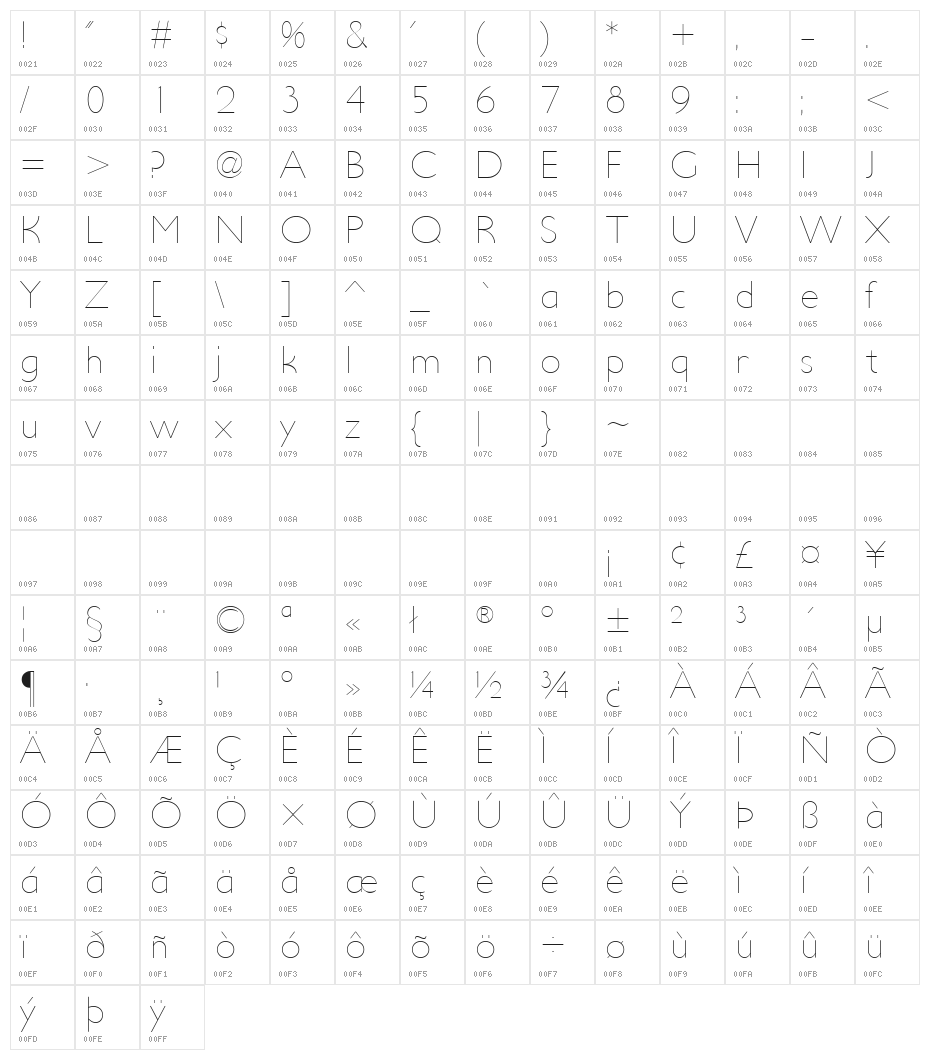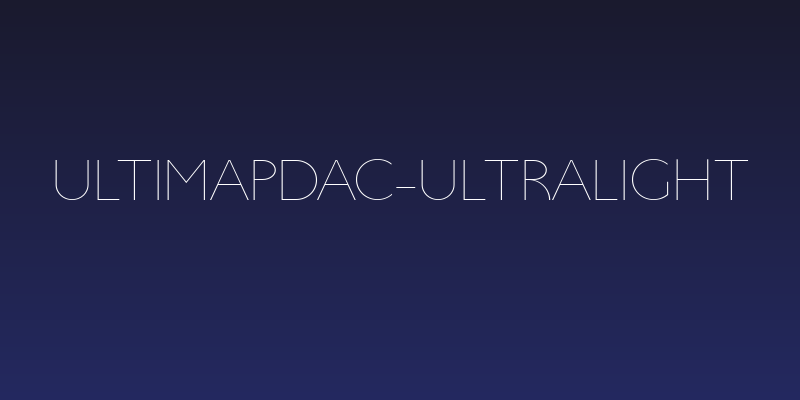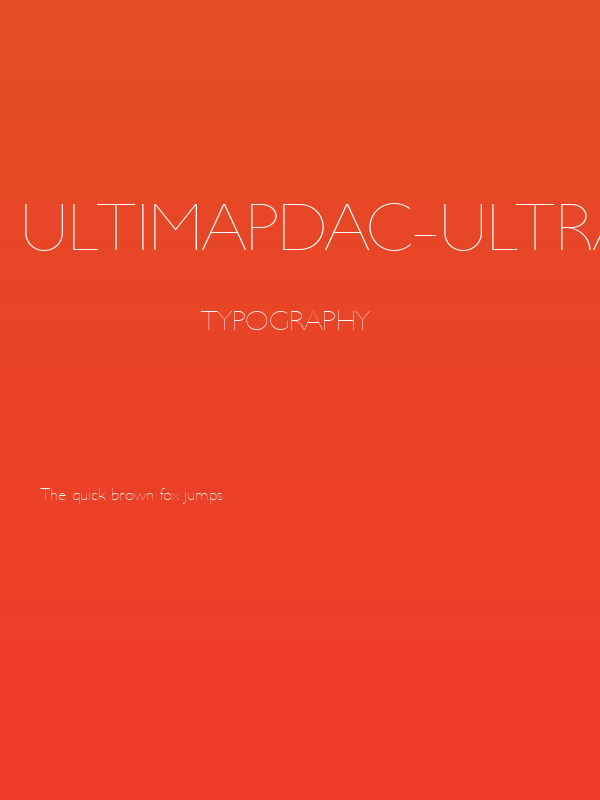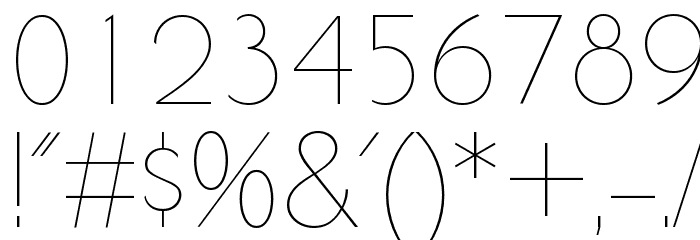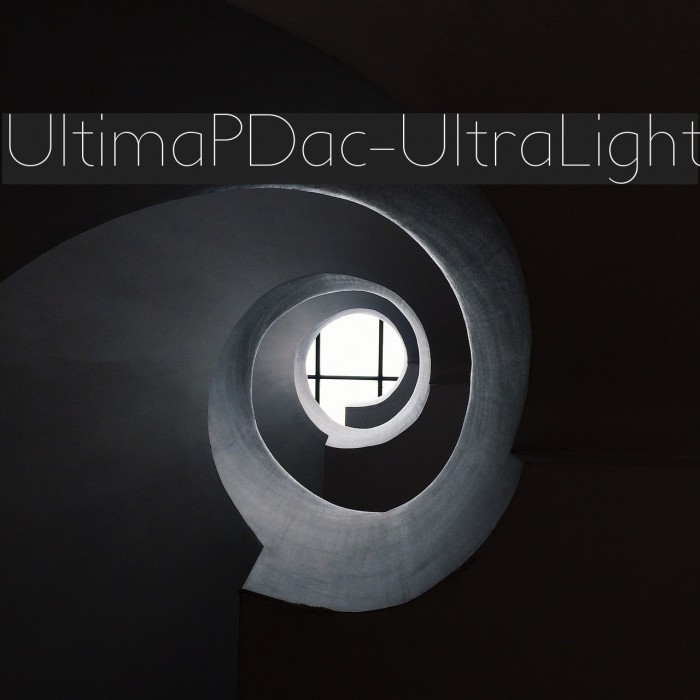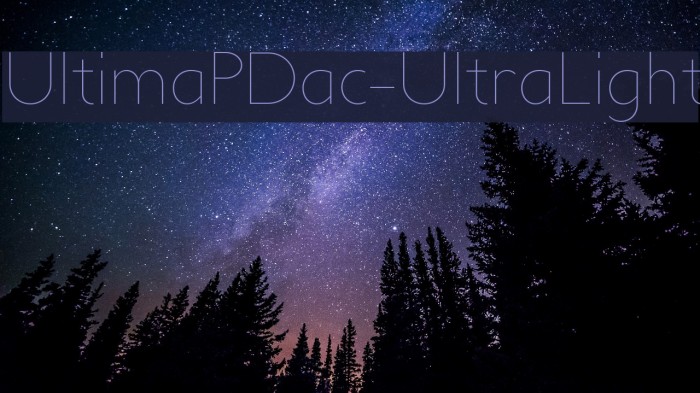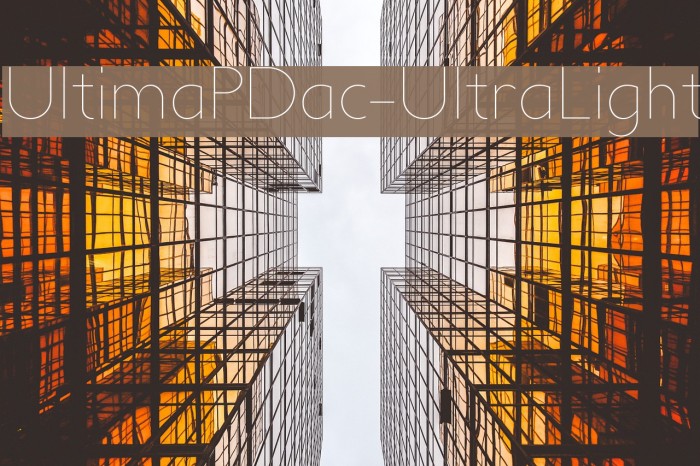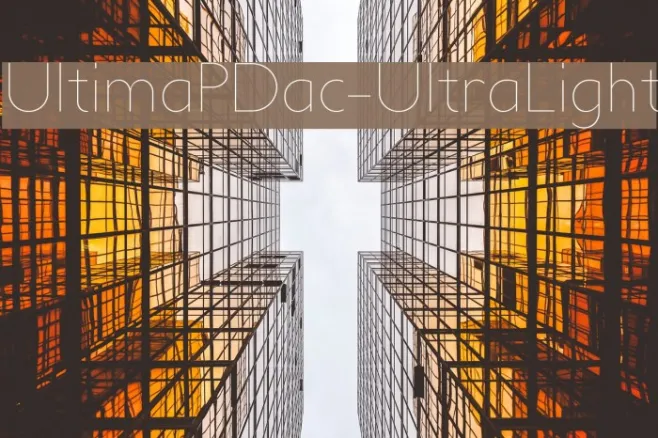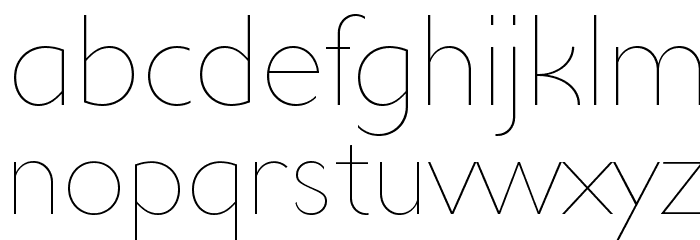
UltimaPDac-UltraLight Font
UltimaPDac-UltraLight Description
This font features a sleek and ultra-light design, characterized by its thin strokes and modern aesthetic. The uppercase and lowercase letters maintain a consistent geometric structure, providing a clean and minimalist appearance. The numerals are equally refined, with a uniform stroke width that complements the overall style. Special characters are designed with the same attention to detail, ensuring a cohesive look across all elements. This font's simplicity and elegance make it suitable for contemporary design projects where clarity and sophistication are desired.
| Proposed Projects | Ideal for branding, editorial design, and digital interfaces where a modern and clean look is essential. |